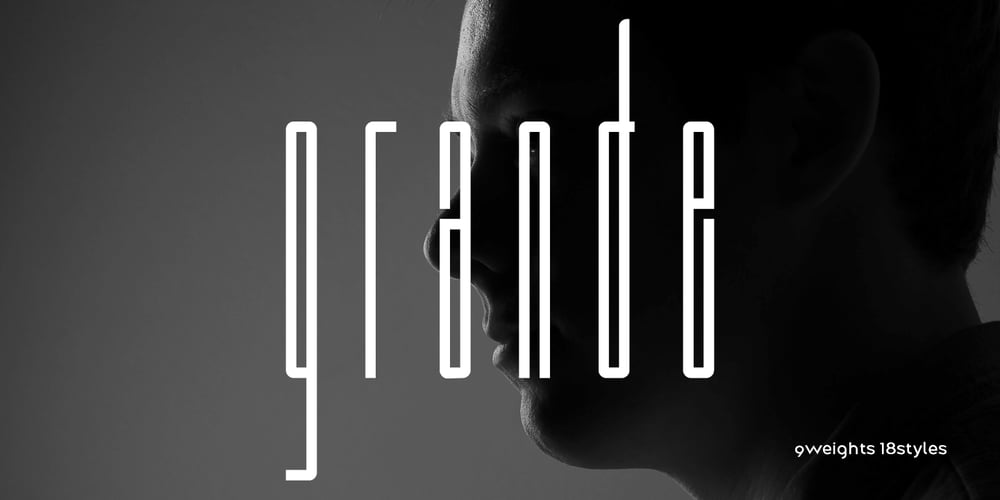
Along Sans Grande Font Family was designed by Ryul Davidson and published by Brenners Template. Along Sans Grande contains 18 styles and family package options. Along Sans Grande is an ultra condensed sans serif font family developed based on the typeface styles of the Along Sans Geometric Font Family.In the case of the black weight with the largest change in the size of the stem, the size is 180:140:100, respectively.And, the thin weight style has the same proportion of stem size.Some Glyphs that need to support the stem alone remain a size 222 for Black Weight.These interpolation rules are sufficient to complement the rhythm and readability of the whole family.This family is perfect for special titling works, logo designs, and cool showcases.